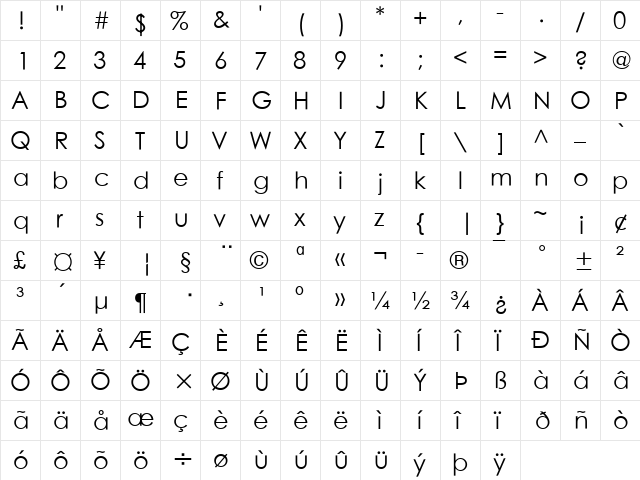
STXihei Regular Font Preview
STXihei Regular
Design Context for STXihei Typeface
STXihei is a composed and adaptable typeface that performs quietly and consistently across a wide range of design contexts.